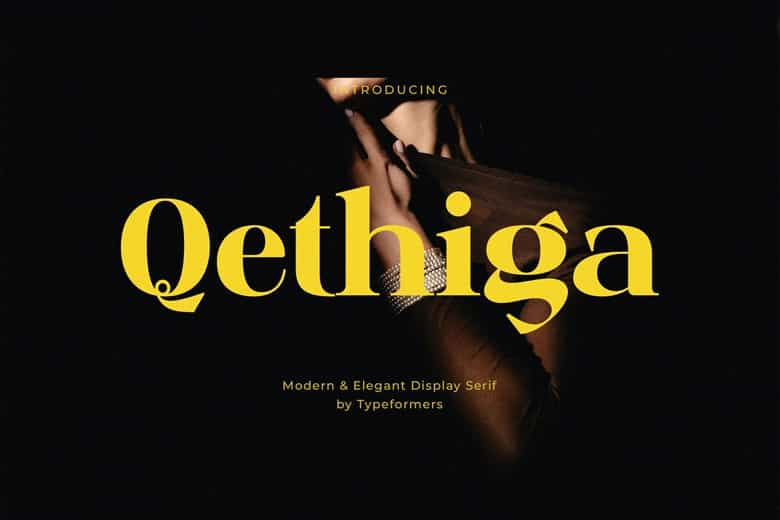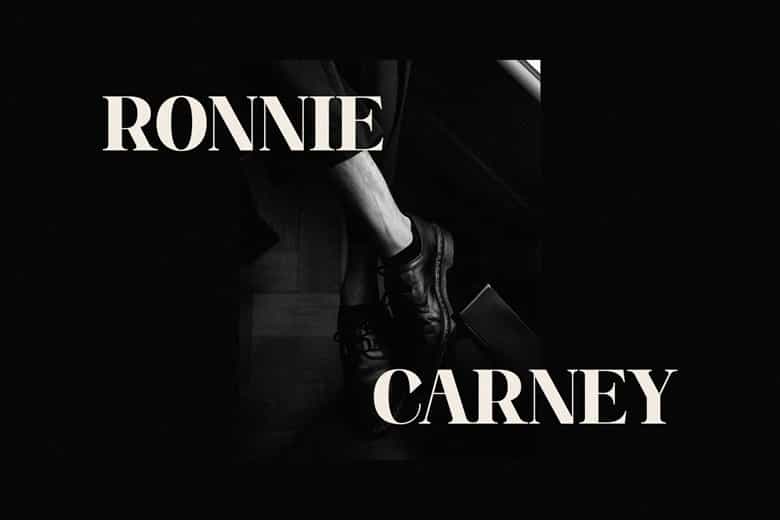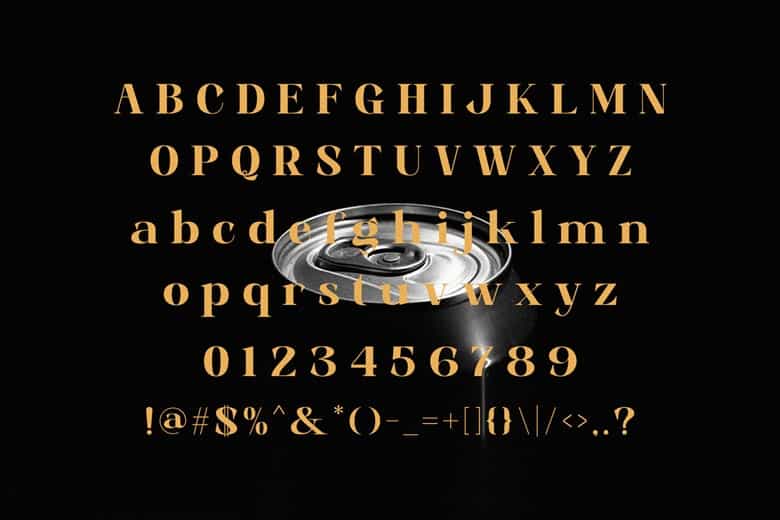
Qethiga is a wonderfully crafted serif font which has the beauty of modern elegance and the attractiveness of vintage charm. Qethiga is a distinct, stylish with its serifs and refined curves and can be use for logo design, web content.